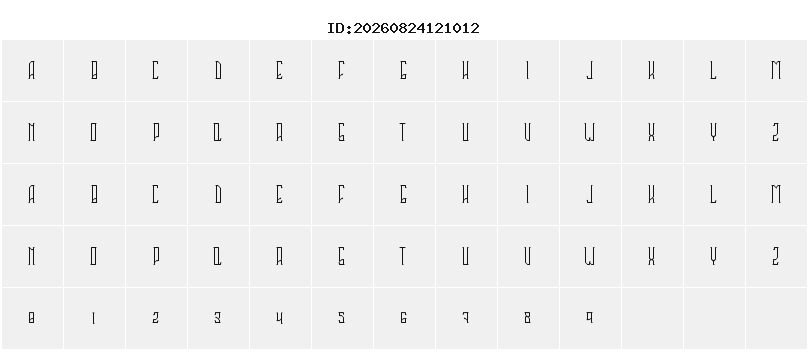
Sahaquiel Preview
• Font Name: Sahaquiel
• Full Font Name: Sahaquiel Regular
• Designer: ERGO Hiki
• Description: ‚ÄúSahaquiel‚Äù was built with FontStruct
About Sahaquiel.ttf
Sahaquiel.ttf is a modern, elegant sans-serif font designed for ultimate readability and visual harmony. Perfect for branding, headlines, web design, and print materials.